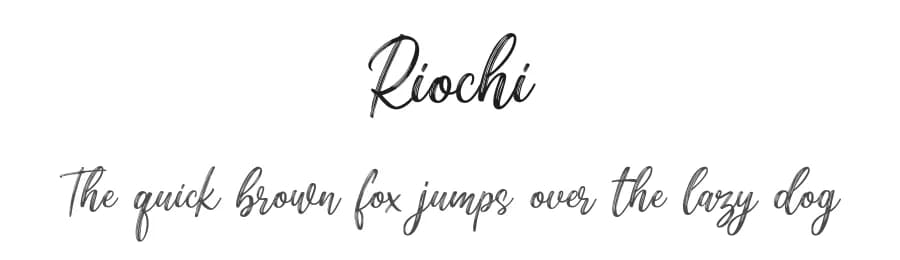
About Riochi Font
Riochi Specifications
| Font Family | Riochi |
| Full Name | Riochi |
| Glyph Count | 241 glyphs |
| PostScript Name | Riochi |
| Designer | Diki Hermawan |
Riochi supports 217 languages.
Riochi Font is a script font that shines as a display or heading face. Pair it with a clean sans-serif or serif font for body text β the contrast creates a clear hierarchy while the two styles stay balanced and easy to read.
Riochi Font